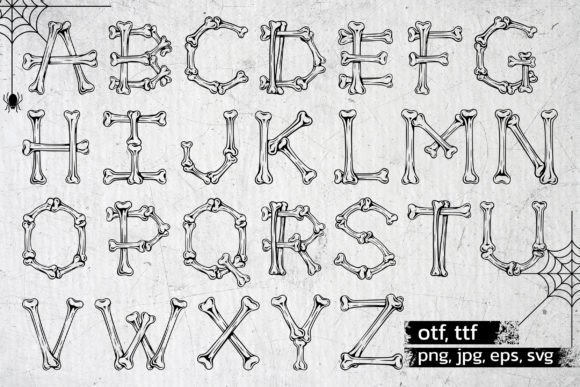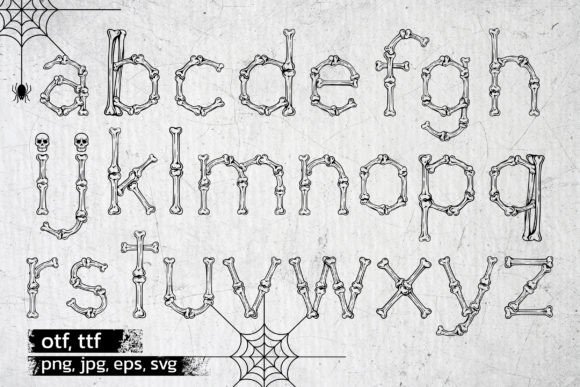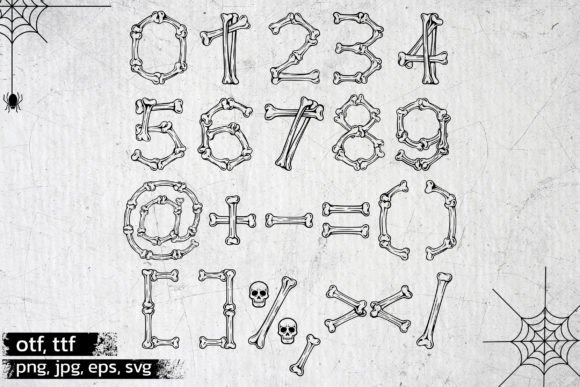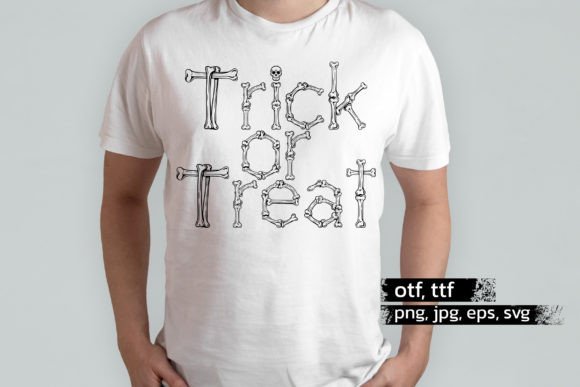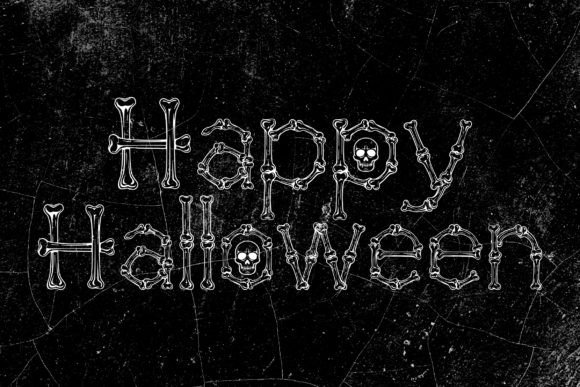
Introduction to Bones Skeleton Font
As a designer, there’s nothing quite like the thrill of stumbling upon the perfect font for a creative project. You’re brainstorming ideas for a Halloween-themed campaign, and suddenly, the perfect font pops up – Bones Skeleton Font. Its unique design and high quality make it a standout choice for any spooky or interesting design, from t-shirts to stickers and beyond.
Whether you’re working on a last-minute advertisement or crafting the perfect Halloween card, Bones Skeleton Font is the perfect design resource to elevate your project. And the best part? It’s available for a free download, making it an accessible and valuable addition to any designer’s toolkit. With a transparent background, you can easily integrate it into your design without any hassle.
As a valuable design resource, Bones Skeleton Font is sure to be a game-changer for designers looking to add a touch of creativity and whimsy to their projects. Its versatility and unique style make it a must-have for any creative endeavor, and its transparent background ensures seamless integration into your design.
Bones Skeleton Font
- High-quality, hand-drawn design suitable for creative projects and design resources.
- Unique characteristics include intricate bone details and a skeletal theme, perfect for Halloween-themed designs, medical illustrations, or creative projects.
- Designed to be versatile, making it suitable for use in various design contexts, from print materials to digital media.
Honest Review: Bones Skeleton Font
I recently had the chance to try out the Bones Skeleton Font and I must say it’s been a game-changer for my creative projects. This high quality font is a fantastic design resource that adds a touch of elegance to any project.
One of the things that stands out about the Bones Skeleton Font is its unique design. The transparent background allows for seamless integration with any image or background, making it a versatile choice for designers. The font is also incredibly easy to use, with a simple installation process that gets you up and running in no time.
Here are some of the things that I love about the Bones Skeleton Font:
- ✨ Unique design that adds a touch of elegance to any project
- ✨ High quality font that is perfect for creative projects
While the Bones Skeleton Font is a great addition to any design arsenal, there are a few limitations to keep in mind:
- ⚠️ Limited font styles available (although new styles are being added regularly)
- ⚠️ May not be suitable for very large text sizes
Overall, I’m thoroughly impressed with the Bones Skeleton Font and would highly recommend it to any designer looking for a high-quality design resource. It’s a great addition to any creative project and is sure to impress. The free download option is also a major plus, making it accessible to designers of all levels.
Bones Skeleton Font
The Bones Skeleton Font is a high-quality, free download that can be used in a variety of creative projects. It features a transparent background, making it easy to use in design software.
- Use the font to create your design, taking advantage of its unique and creative style.
To get the most out of the Bones Skeleton Font, try using it in combination with other design elements, such as graphics and textures. Experiment with different font sizes and styles to create a unique and eye-catching design.
The Bones Skeleton Font is perfect for a variety of creative projects, including:
- Spooky-themed designs and graphics.
- Dark and moody branding and marketing materials.
- Creepy and atmospheric illustrations and artwork.
Alternatives to Bones Skeleton Font
1. Open Sans Skeleton Font
Open Sans Skeleton Font is a high-quality, open-source font that offers a clean and minimalist design. It’s perfect for use in creative projects where a transparent background is required. Unlike Bones Skeleton Font, Open Sans Skeleton Font has a more modern feel and is ideal for digital designs such as mobile apps, websites, and social media graphics.